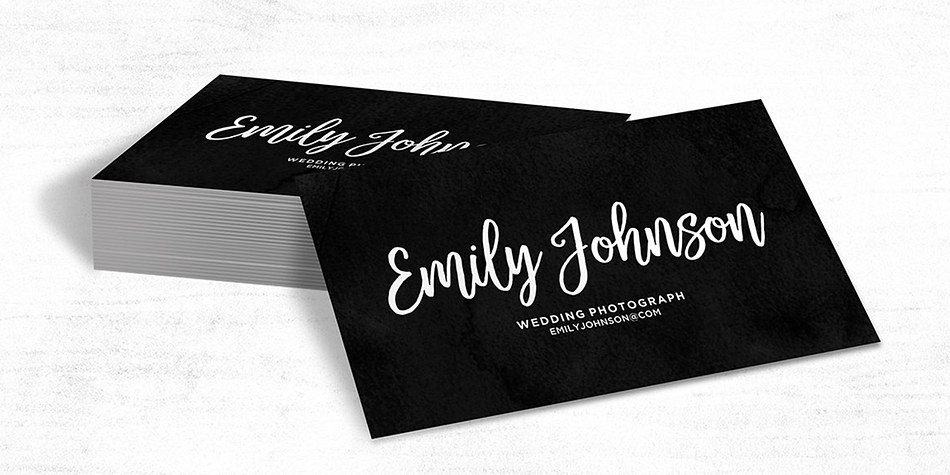
Hello Sweets Script
Hello Sweets Script is a modern calligraphy, script and dingbat font family. This typeface has two styles and was published by Seniors Studio.
Hello Sweets is a hand-brushed modern calligraphy script font, created with both pen & brush. dancing baseline with separate swashes that can be applied to the beginning and ends of all lowercase. Were painted on paper. scanned, vectorized and carefully made into a font. Hello Sweets includes several ligatures, alternates and international support for most western languages.
For the separate swashes font, type lowercase a-z for the beginning swashes and end swashes (can not access to a glyphs panel. need to add swashes manually). Ideal for logo, wedding invitations, businness card, poster, merchandise, greeting cards, prints, blog banners, apparel, quotes and so much more!
Styles Modern Calligraphy, Script, Dingbat